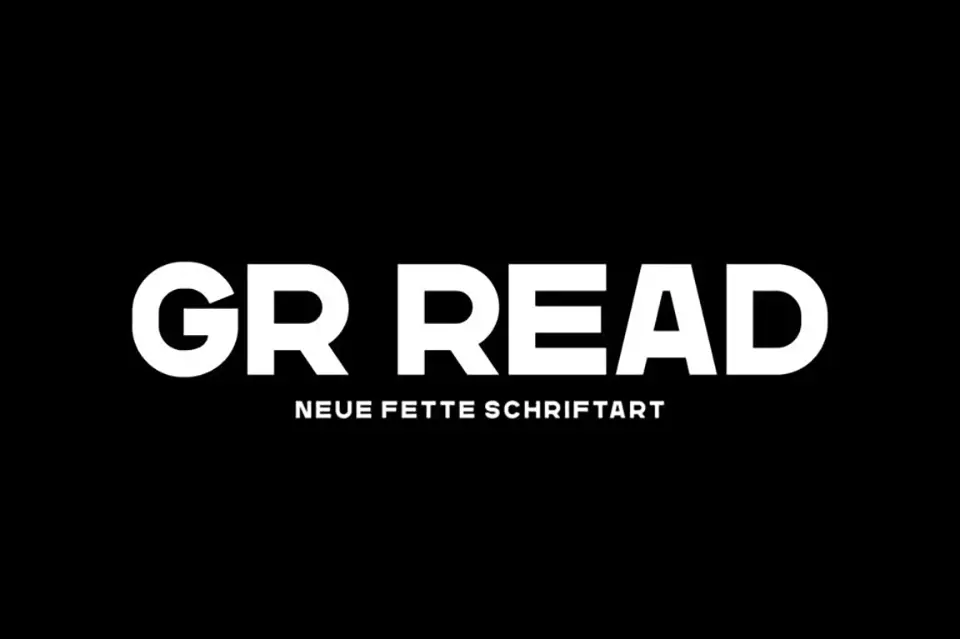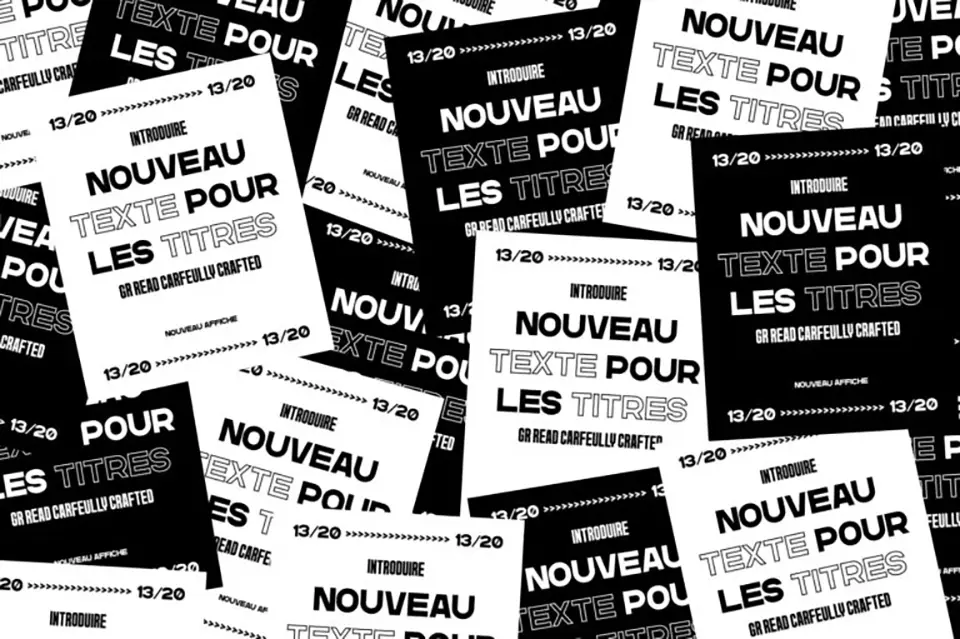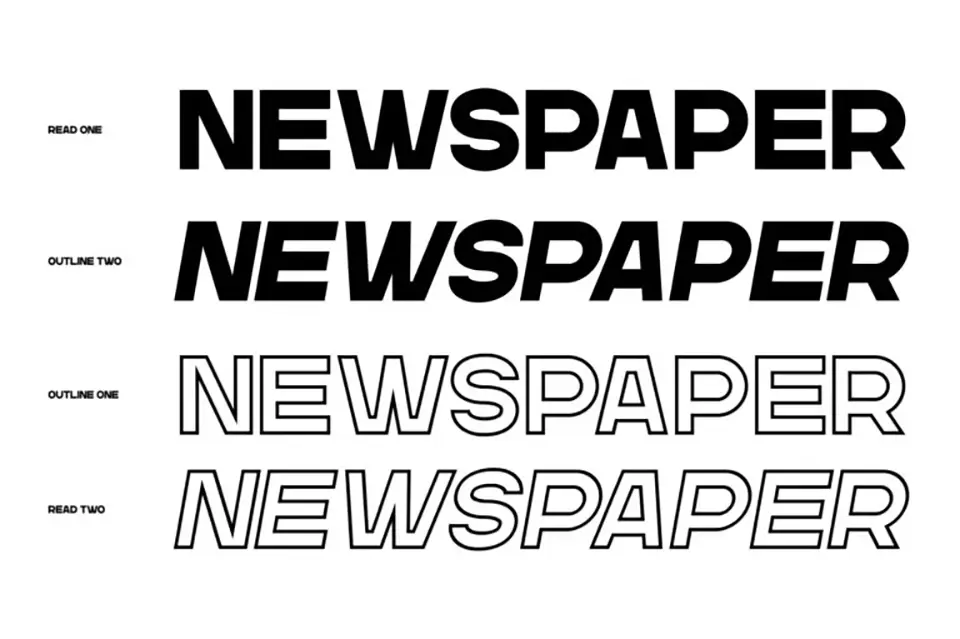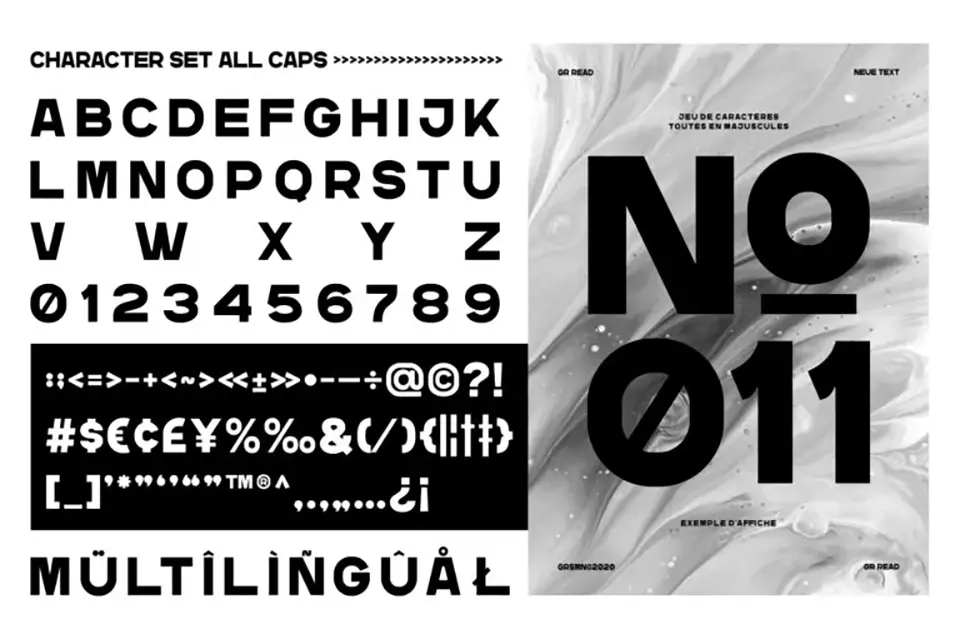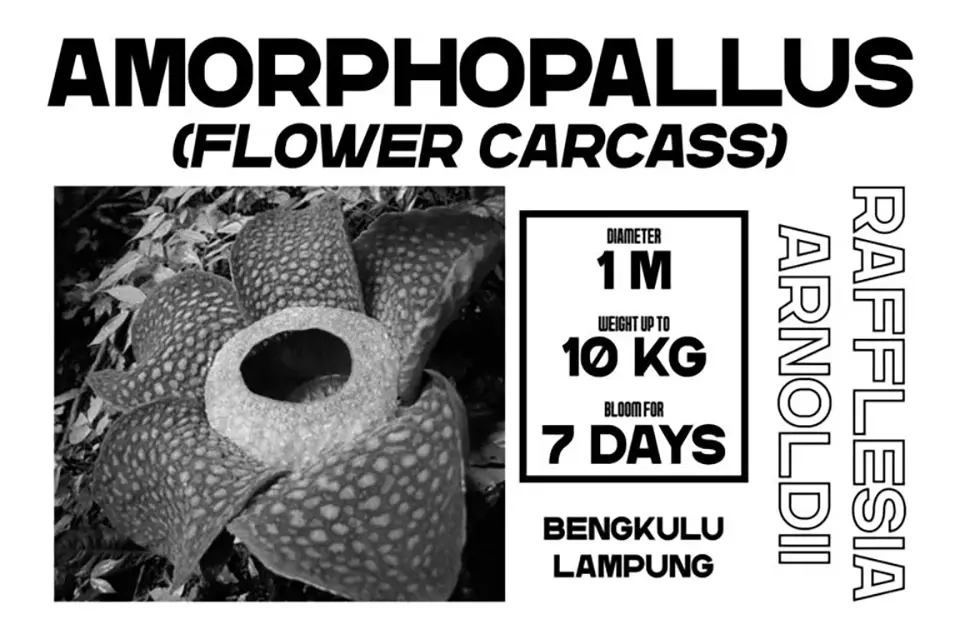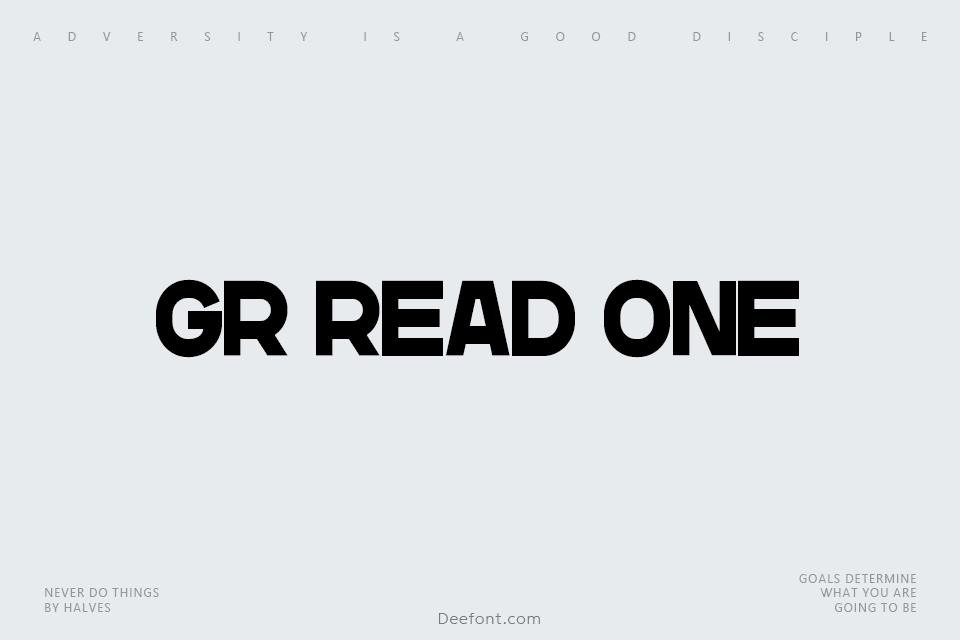
GR Read One Font
GR Read One is a modern and elegant sans serif typeface designed by Garisman Studio. This contemporary font features clean lines and bold curves that combine simplicity with boldness, making it perfect for both headlines and body text. With 350 glyphs and excellent readability, the typeface is ideal for diverse graphic design projects including posters, logos, packaging, websites, and print designs. Its versatile nature and smooth spacing make it suitable for designers of all levels seeking to add sophistication to their creative work.